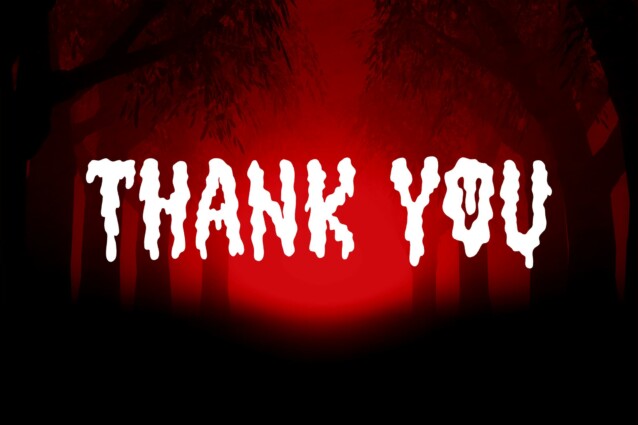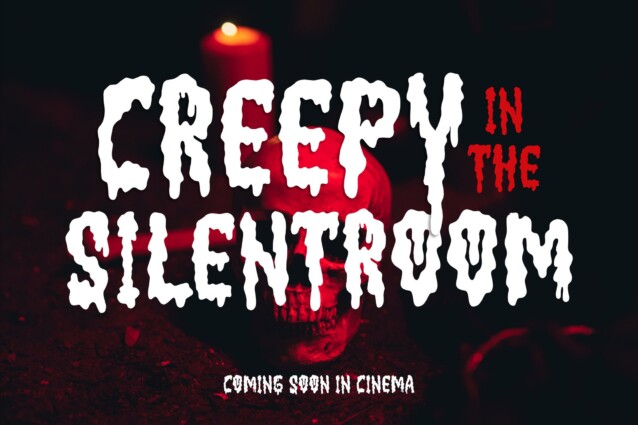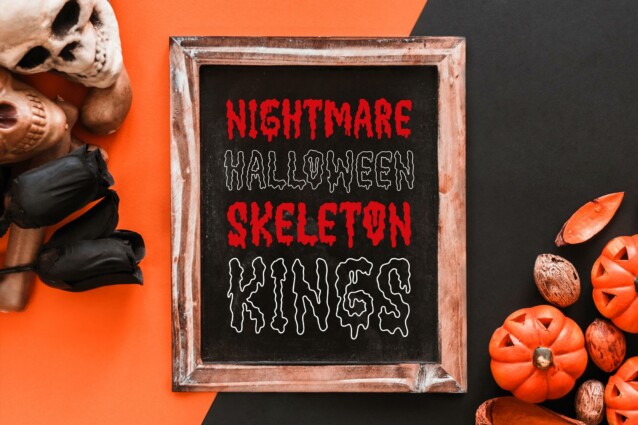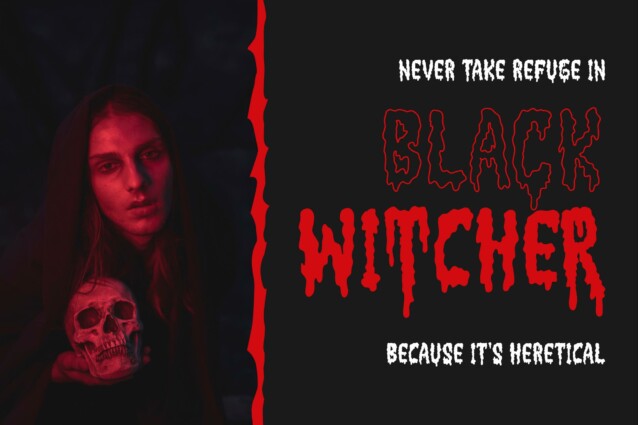
Slaughter Croshing Font
Slaughter Croshing Font is a horror display font, suitable for any projects such as: logos, branding projects, homeware designs, product packaging, mugs, quotes, posters, shopping bags, t-shirts, book covers, name card, invitation cards, greeting cards, label, photography, watermark, special events, and all your other lovely projects that need a beautiful script taste.